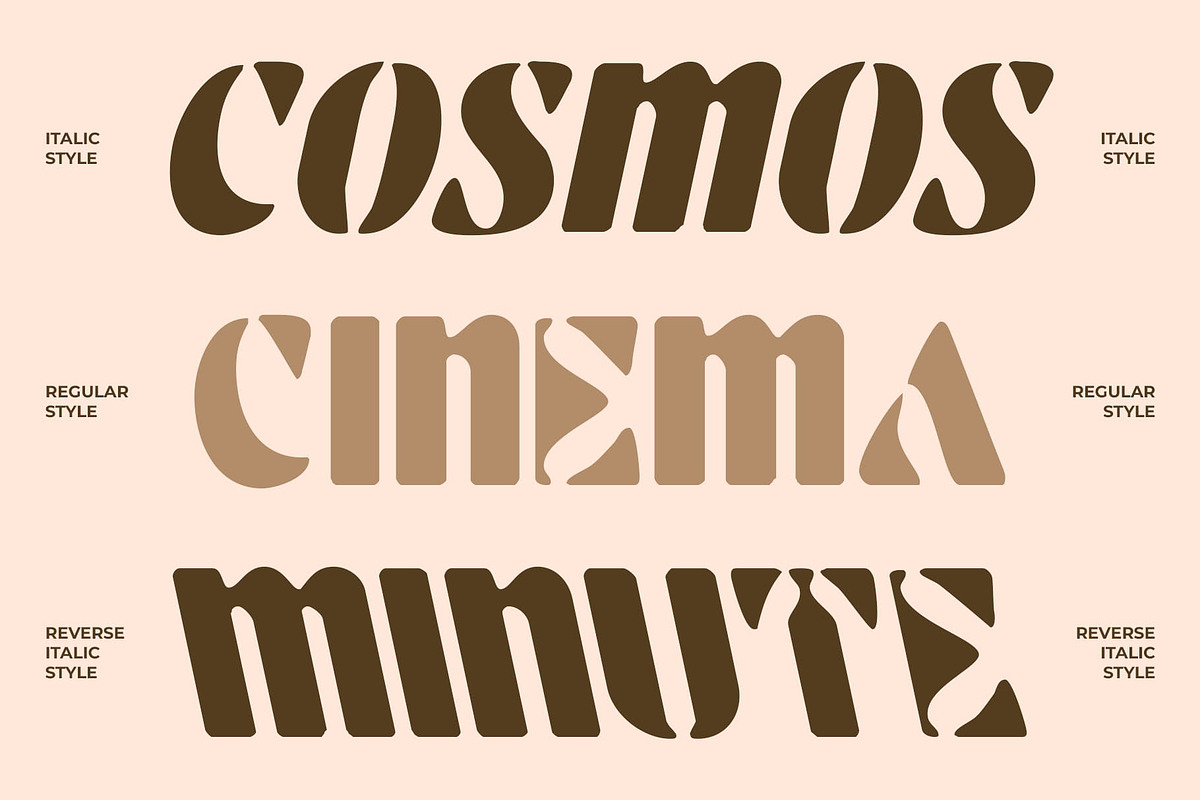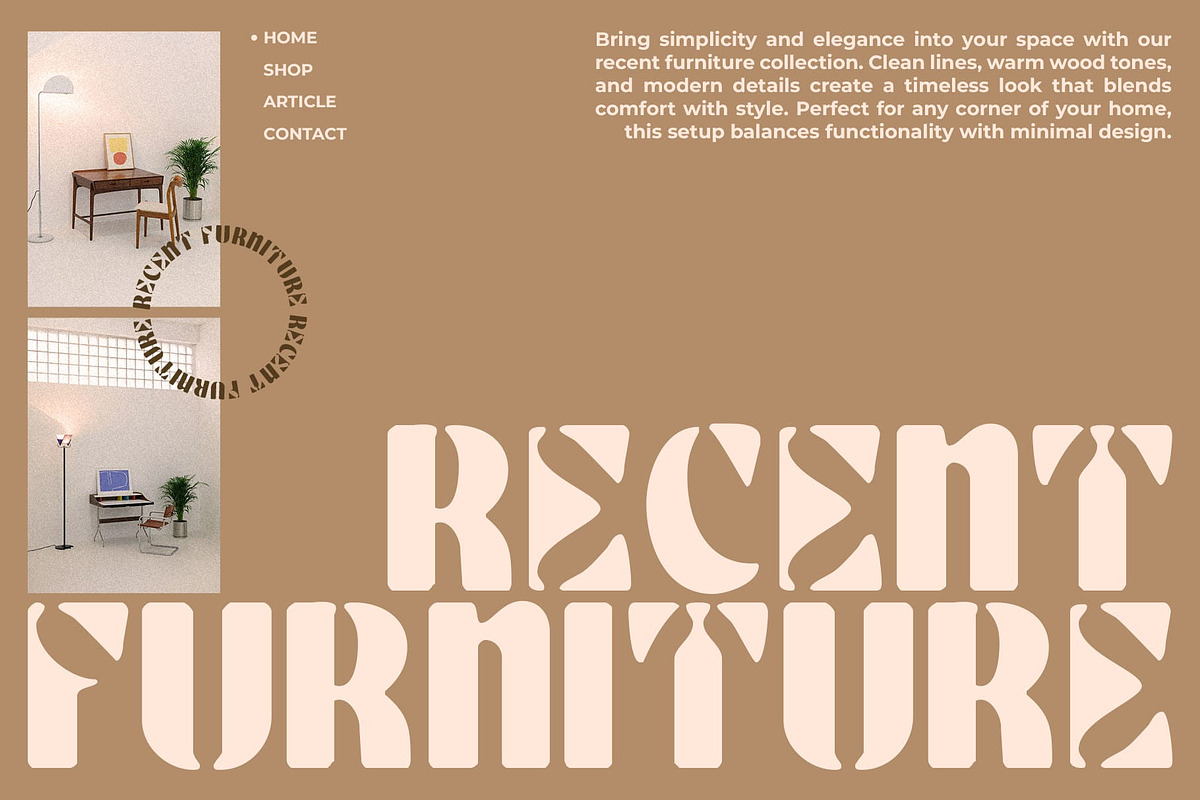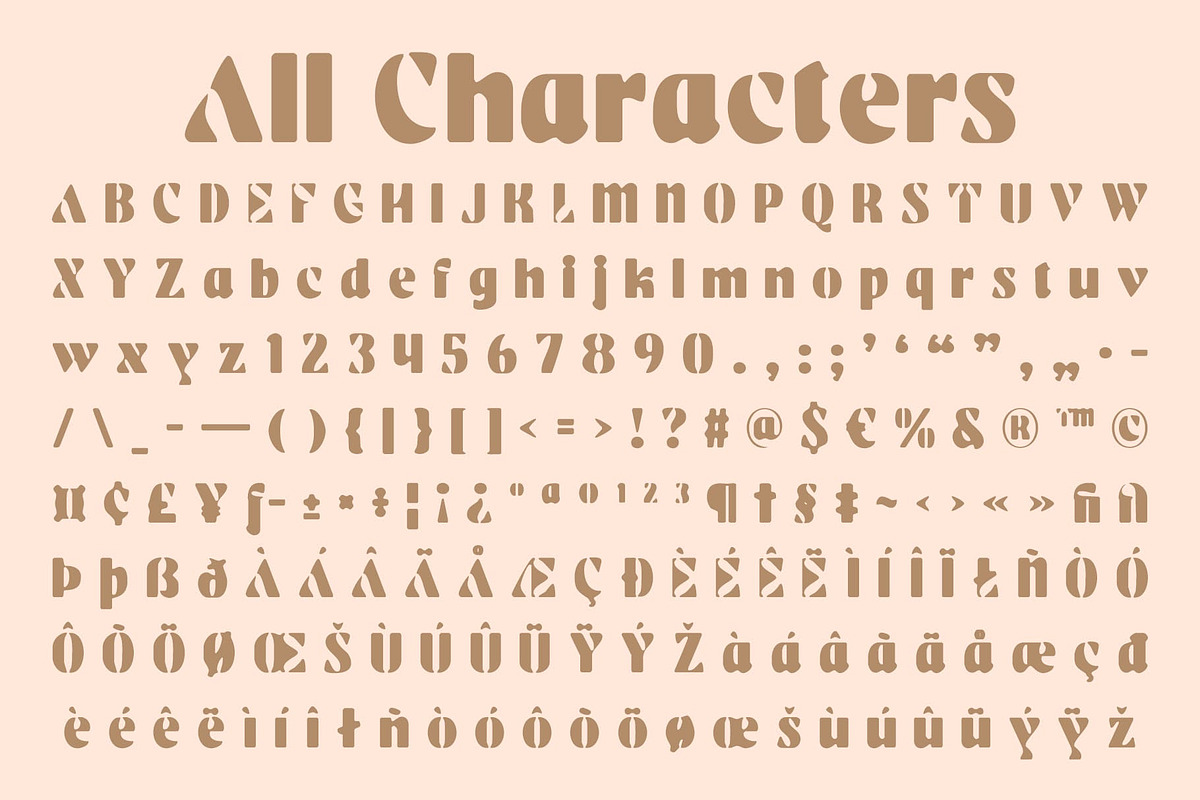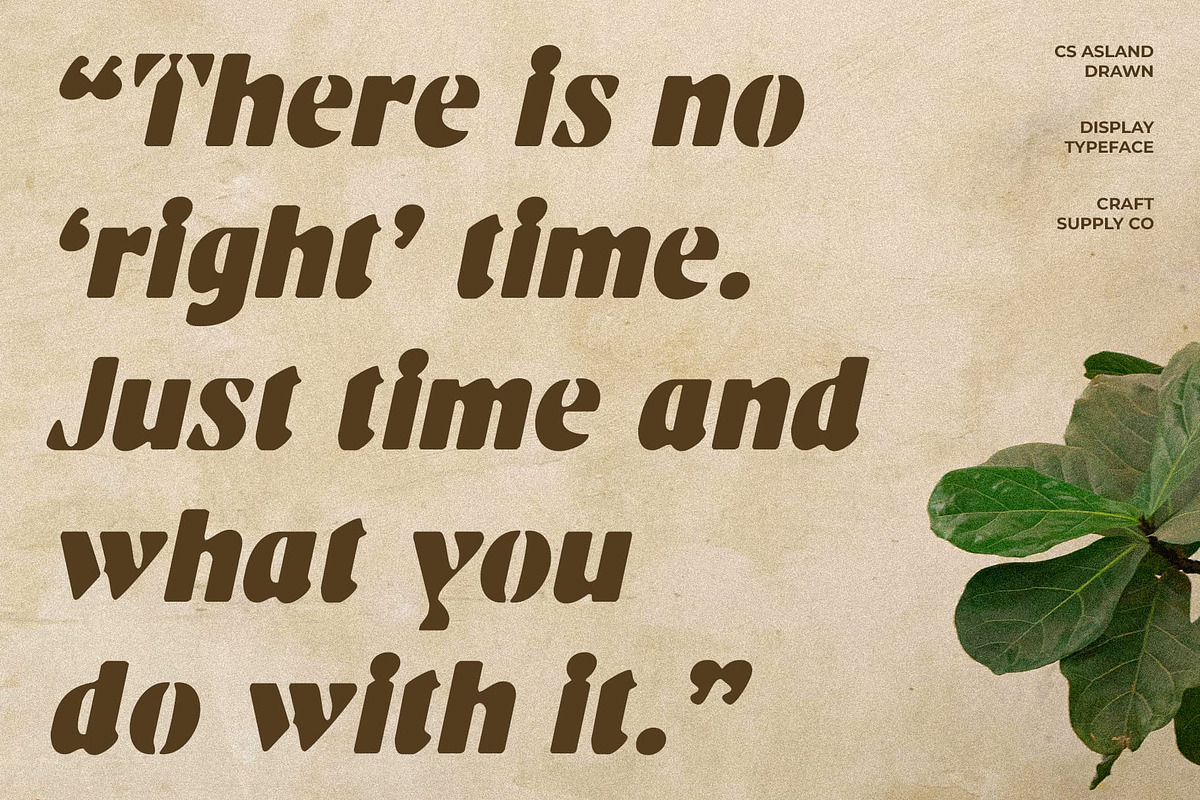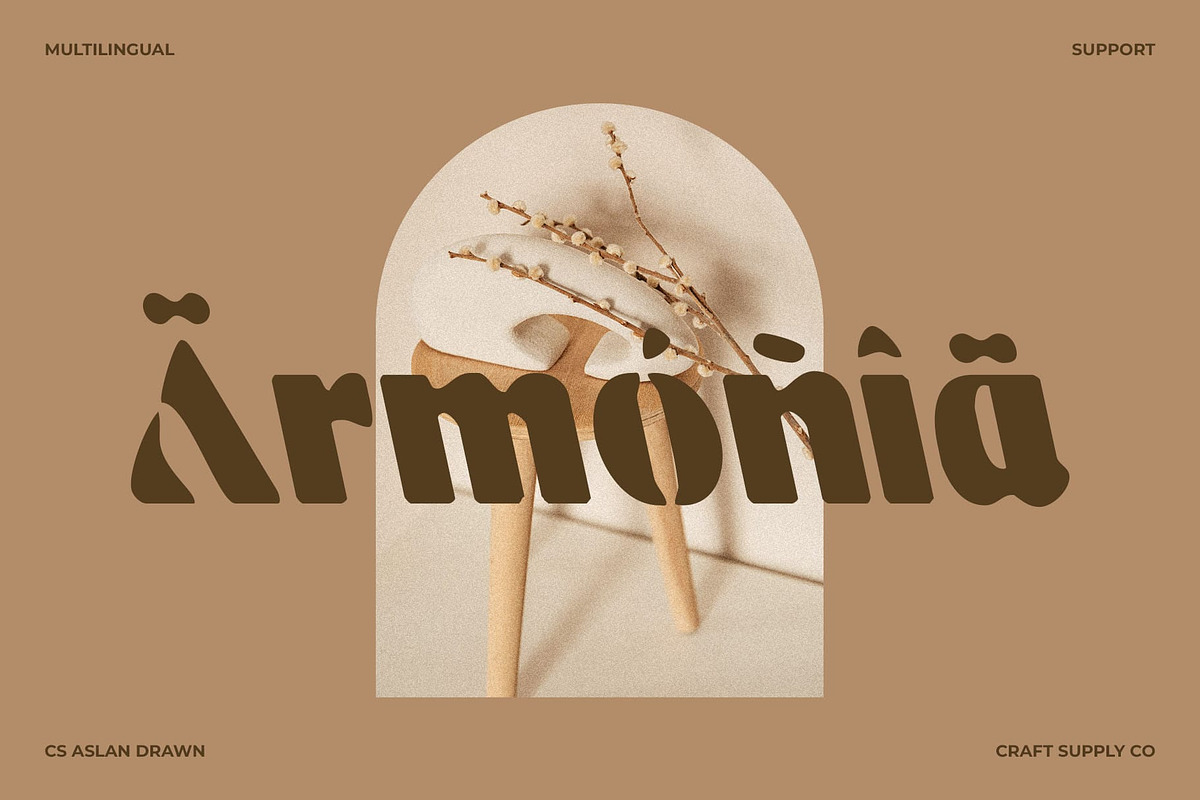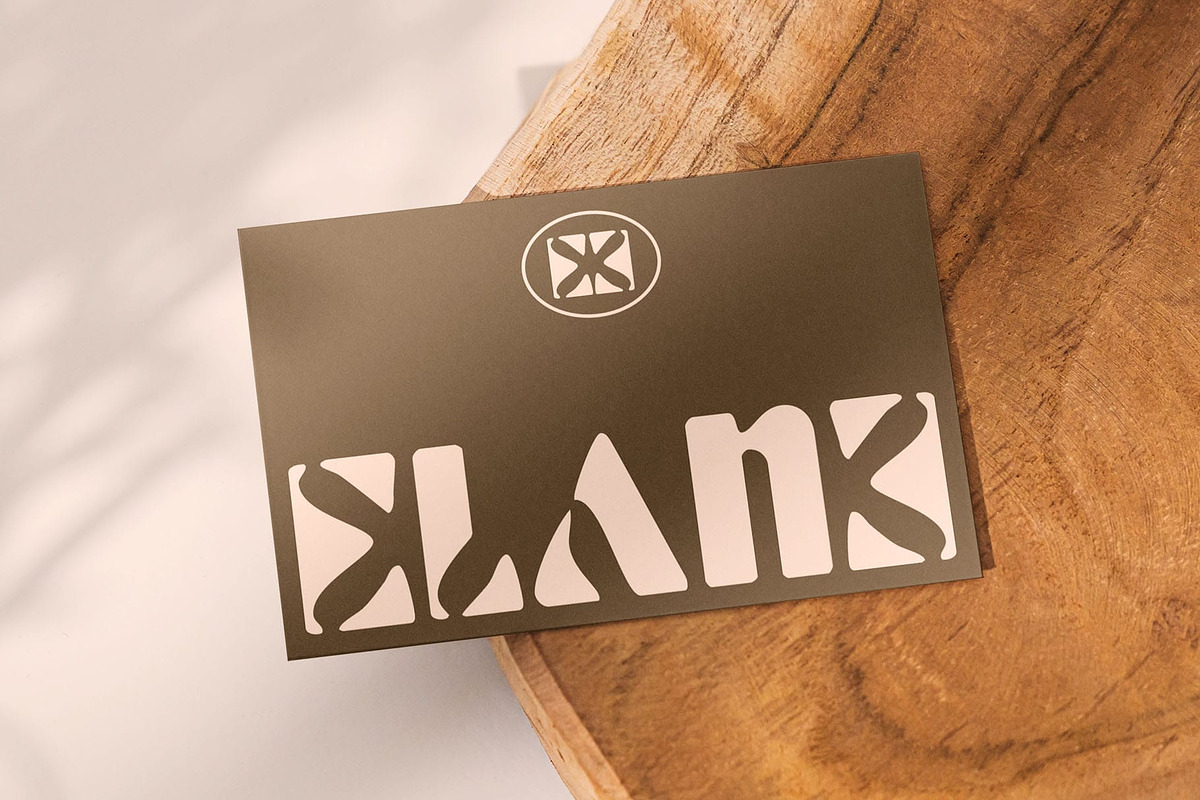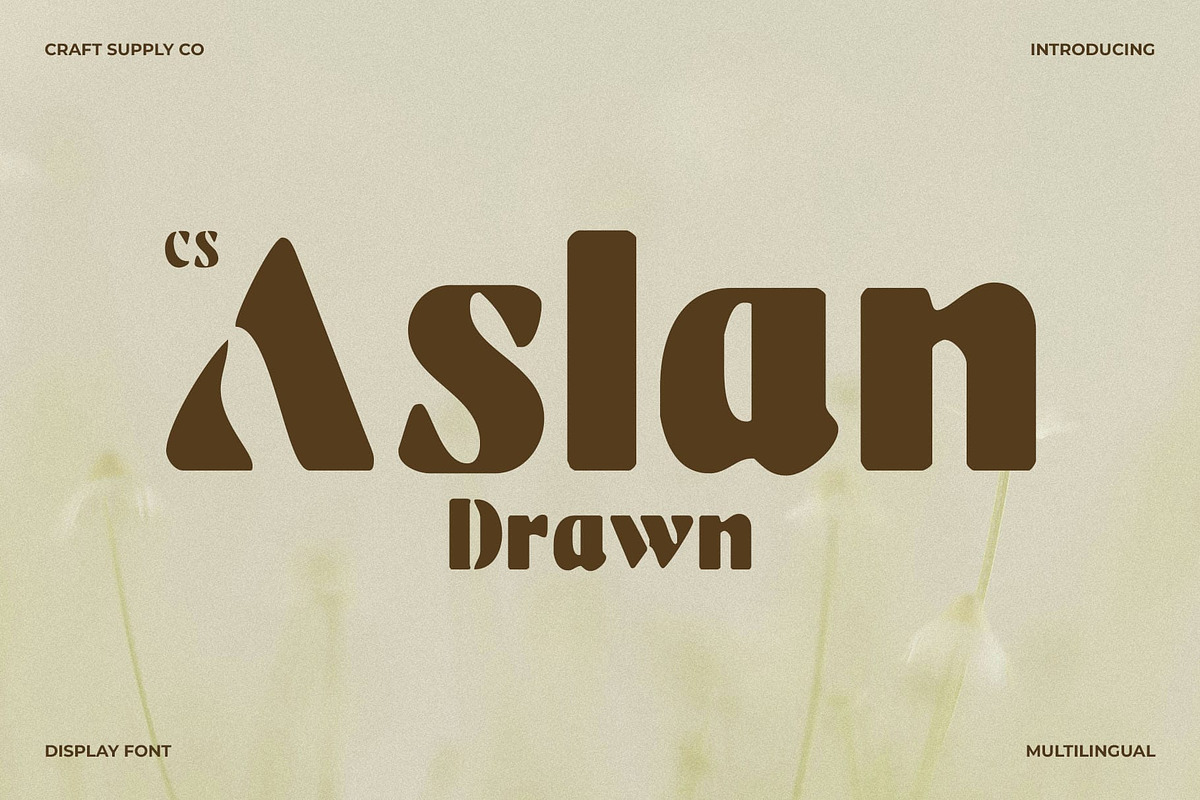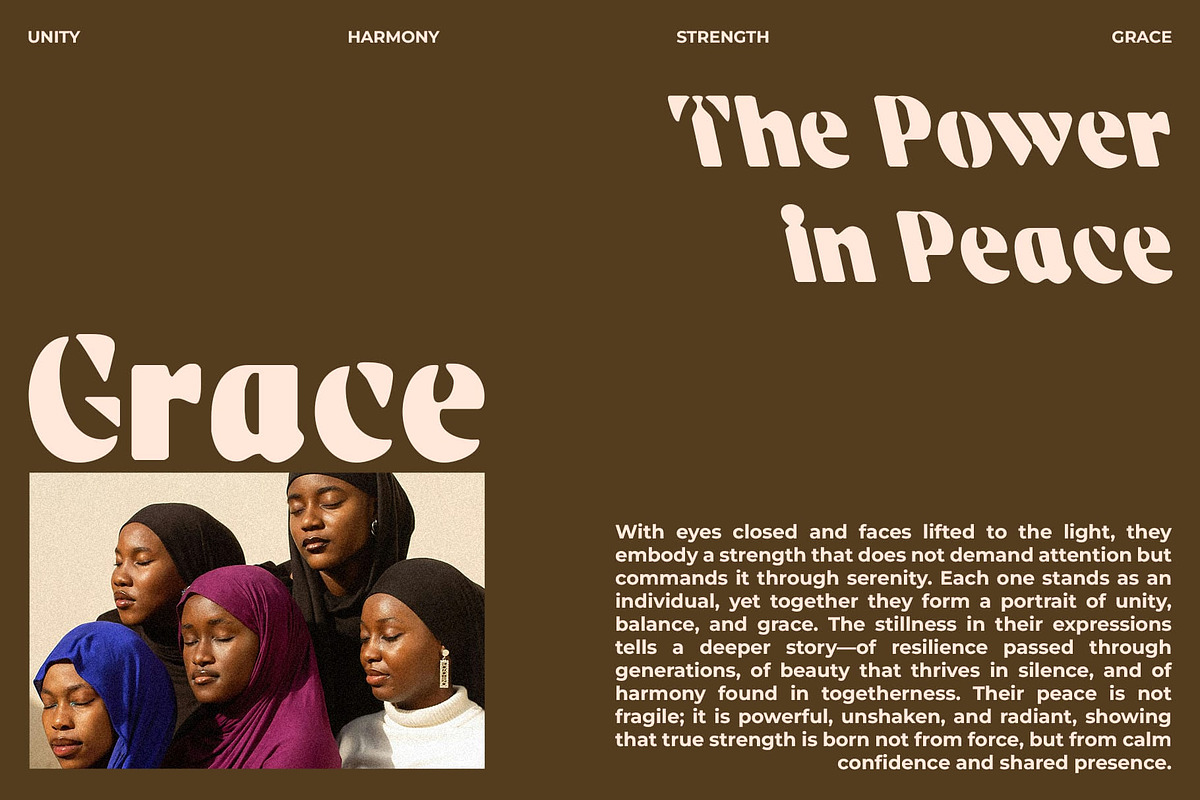
CS Aslan Drawn
Bold Expression with Artistic Flair: Bold Sans Serif Display Font with Drawn Texture
Striking Shapes Inspired by Art Nouveau This is a bold sans serif display font that combines modern strength with the flowing beauty of Art Nouveau influence. Its striking forms demand attention, blending structure and style to create a design presence that feels both contemporary and artistic.
Handmade Texture for Unique Personality The drawn handmade touch enhances its character, giving each letter a sense of depth and individuality. This texture adds a crafted, artistic quality that sets it apart from conventional display fonts, making it a lively choice for expressive design.
Contemporary Style with Lively Energy More than just bold, radiates energy and liveliness. Its modern shapes carry a sense of movement and expression, allowing your text to stand out in posters, branding, or editorial layouts with a confident and stylish edge.
Versatility Across Creative Applications From striking headlines to eye-catching posters and sophisticated branding, adapts seamlessly to various creative projects. Its combination of bold sans serif clarity and handmade artistry ensures your designs remain powerful, expressive, and memorable.